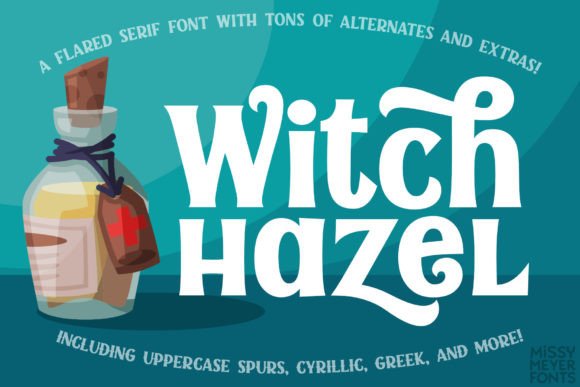
Introducing Witch Hazel Font, the ultimate display font for those looking to add a touch of fancy military elegance to their designs. Created by GeekMissy, this font is a labor of love, featuring slightly flared serifs, an extensive collection of ligatures and alternates, and over 1150 glyphs!
With Witch Hazel, you can elevate your holiday designs from Valentine's Day to Halloween to Christmas. But this font isn't limited to just festive occasions. It seamlessly blends modern and vintage styling, making it perfect for fairy tales, pirates, and even your company's branding and logo!
But what sets Witch Hazel apart is its incredible versatility. It offers an extensive range of characters and features, including the usual A-Z, a-z, and 0-9, along with a vast selection of punctuation. Additionally, it includes Greek and Cyrillic uppercase letters, over 430 extended Latin characters, and small caps.
The font truly comes to life with its decorative alternates. Each letter boasts up to 8 stunning alternates, allowing you to create captivating and unique designs effortlessly. Furthermore, Witch Hazel offers numbers and uppercase letters with both pointy and rounded spurs, giving you even more creative freedom.
To make your design process even smoother, Witch Hazel includes 40 two-letter ligatures, making your text flow seamlessly. And for our Creative Fabrica crafters, we've included separate font files for the pointy and rounded spurs alphabets. Simply type the appropriate letters and numbers to achieve the desired effect.